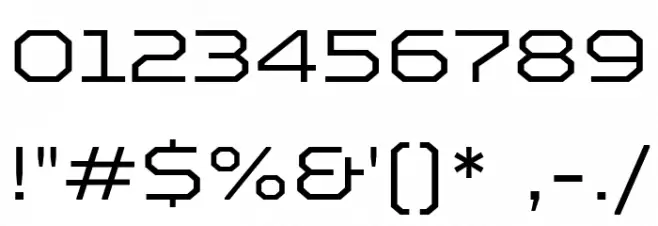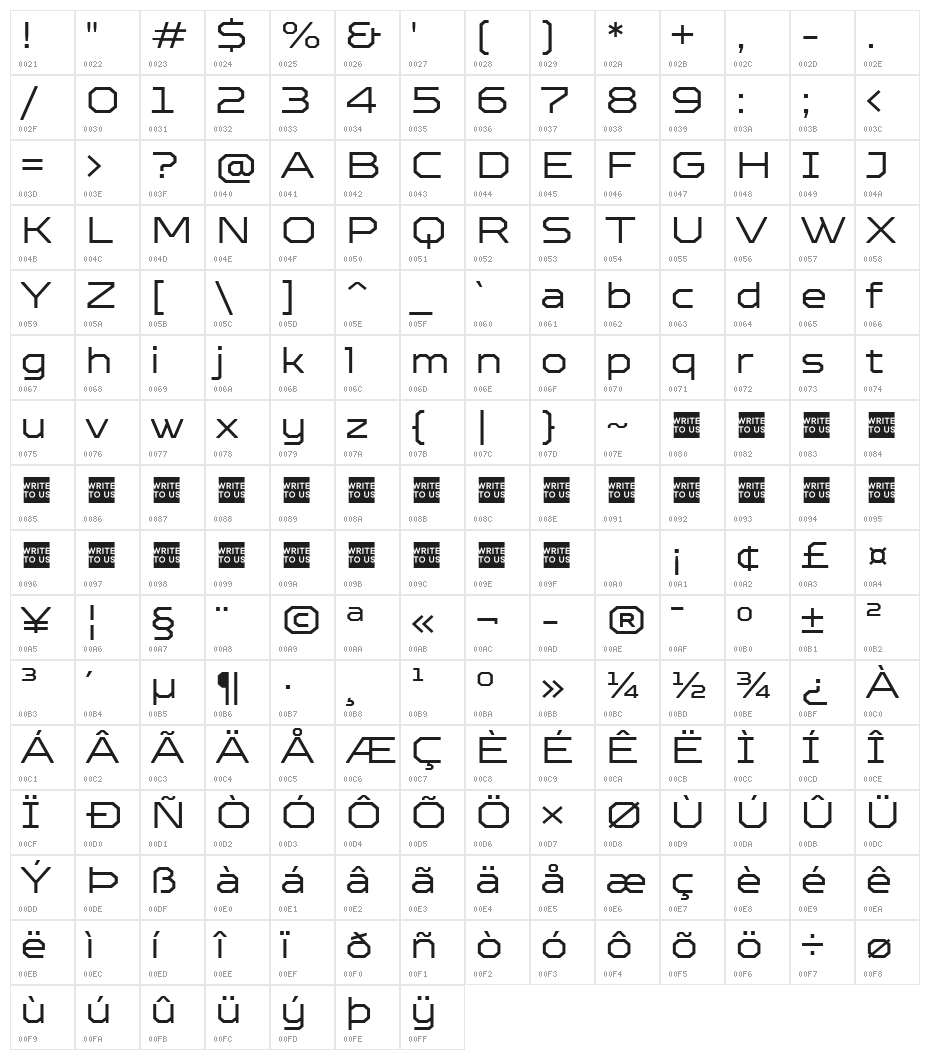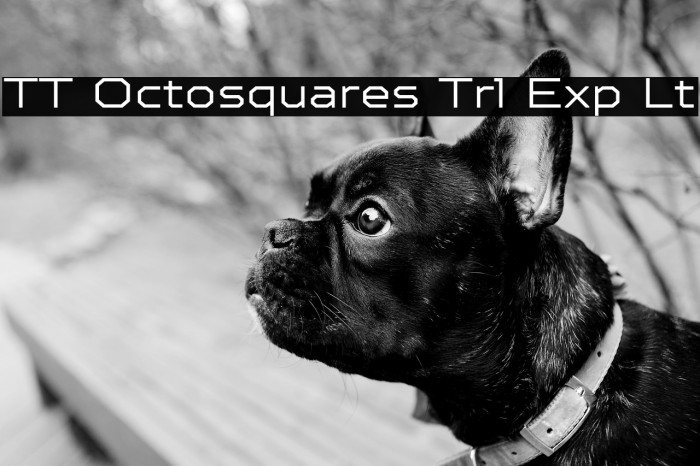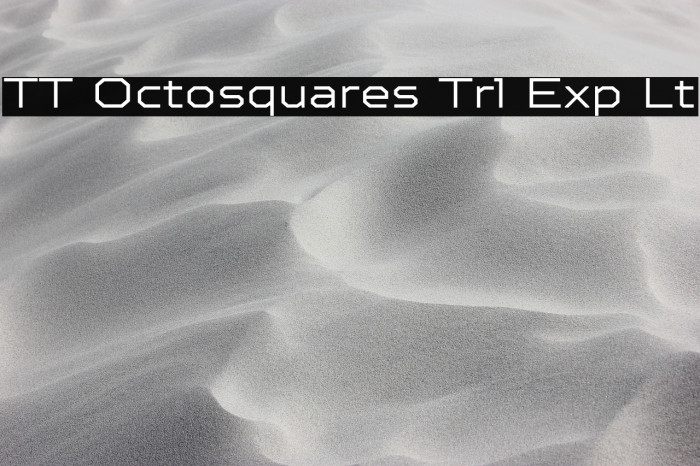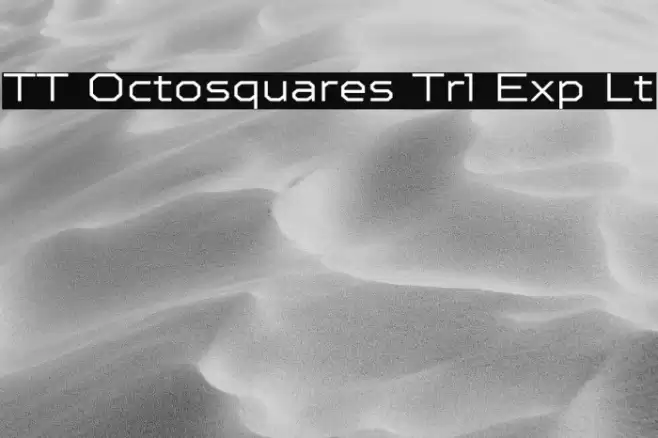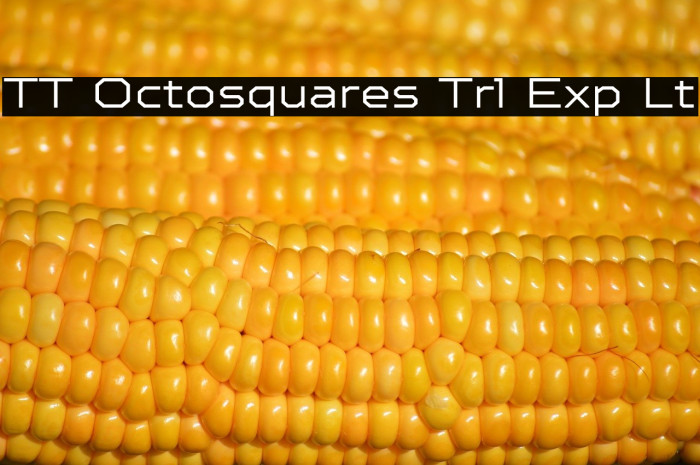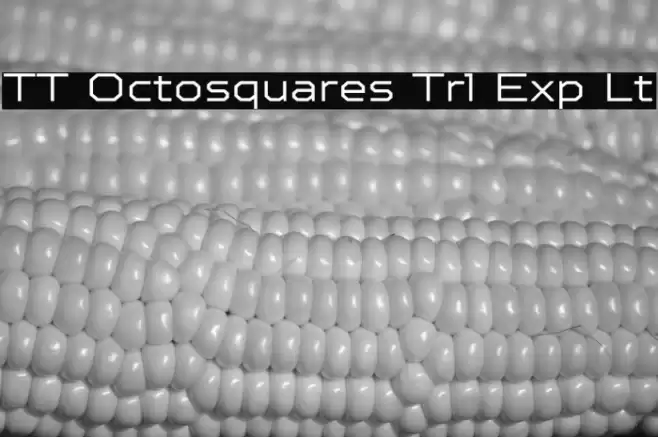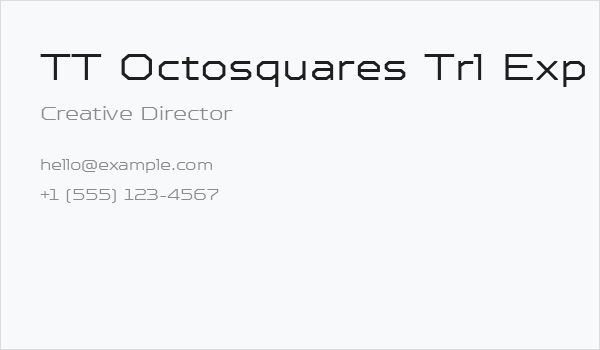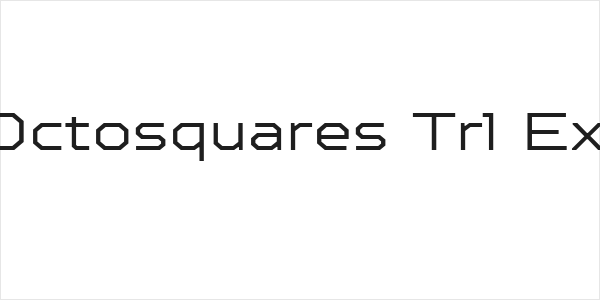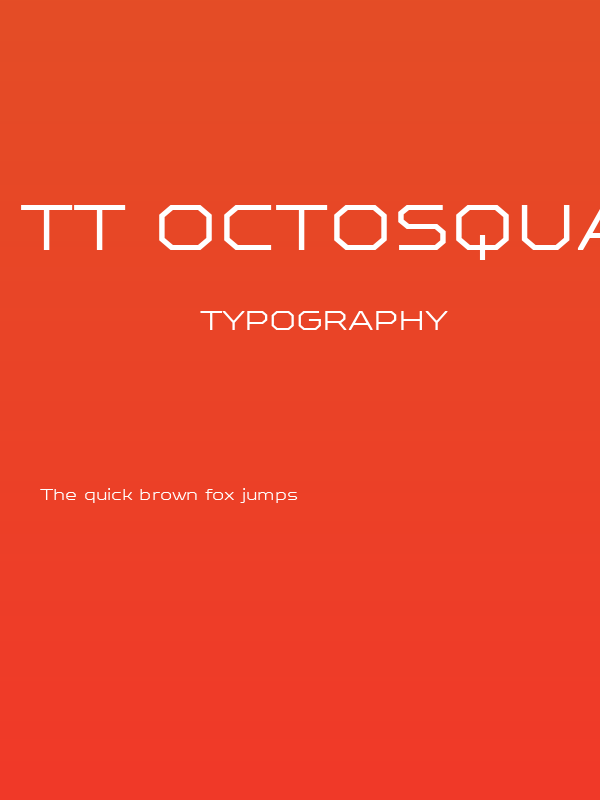
TT Octosquares Trl Exp Lt Font
TT Octosquares Trl Exp Lt Description
This font features a geometric, octagonal design that gives it a modern and futuristic appearance. The characters are constructed with straight lines and sharp angles, creating a distinct and edgy look. The uppercase and lowercase letters maintain a consistent style, with the uppercase being slightly taller and more prominent. The numerals and special characters follow the same geometric theme, ensuring uniformity across all glyphs. The font's clean and structured design makes it suitable for digital and tech-related projects, where a contemporary and innovative feel is desired.
| Width | Expanded |
| Use Case | Logos, Headlines, Digital interfaces |
| Proposed Projects | Ideal for tech branding, digital interfaces, video game design, and futuristic-themed posters. |